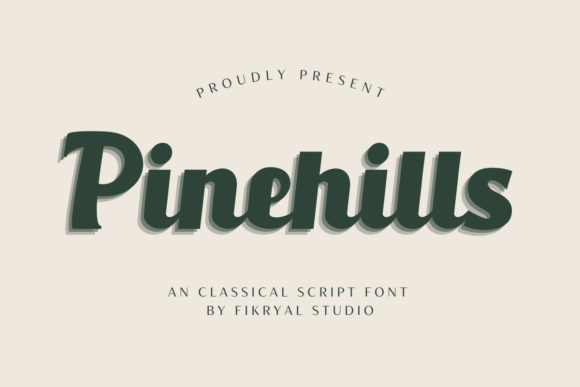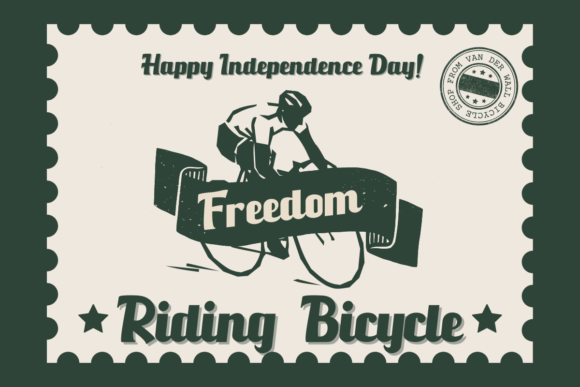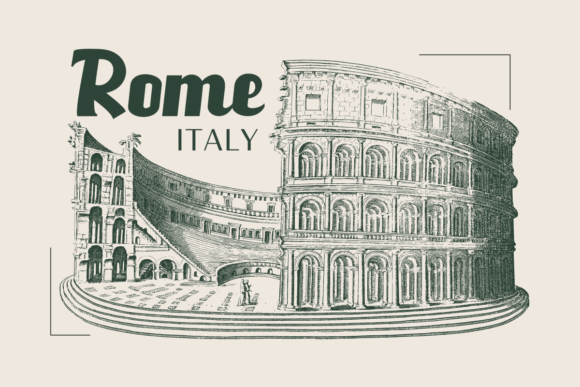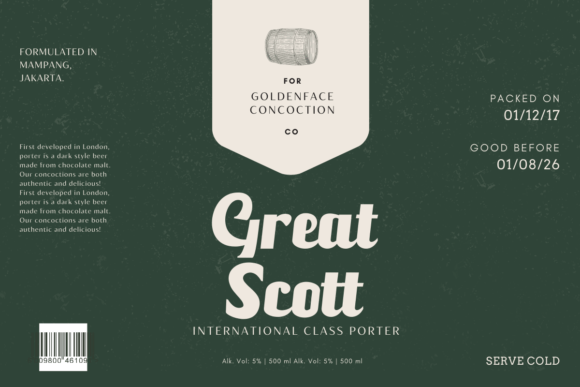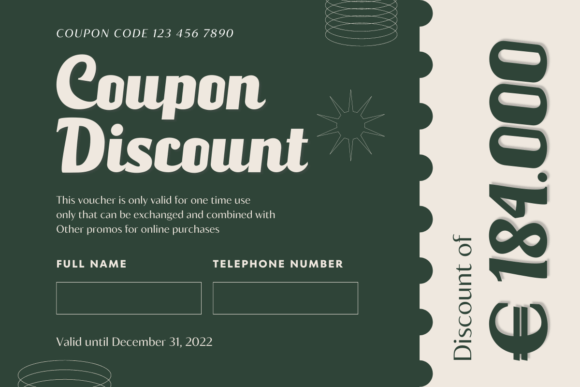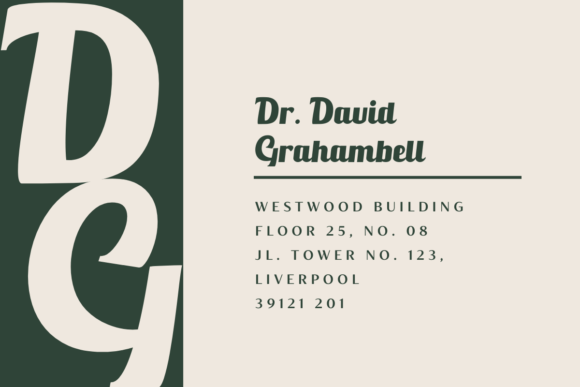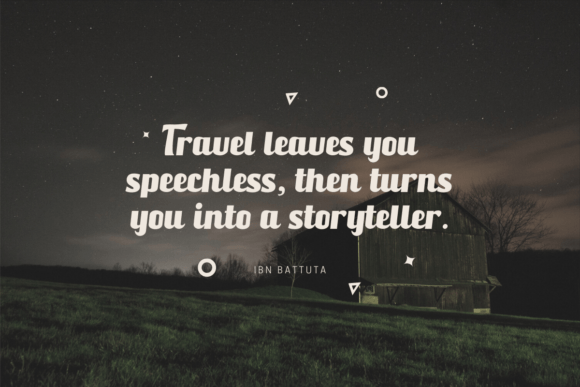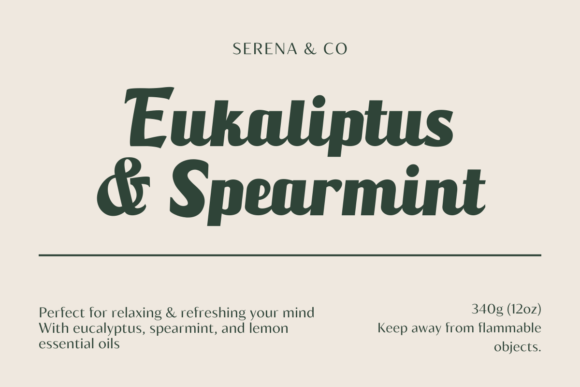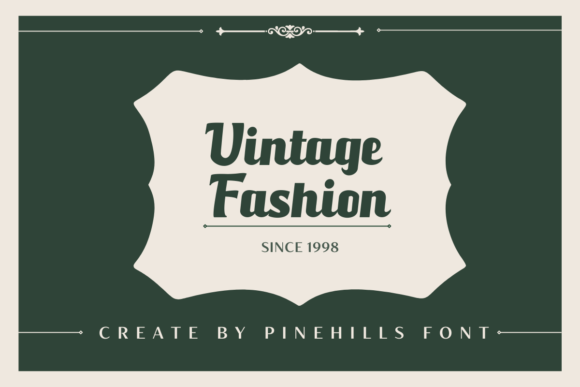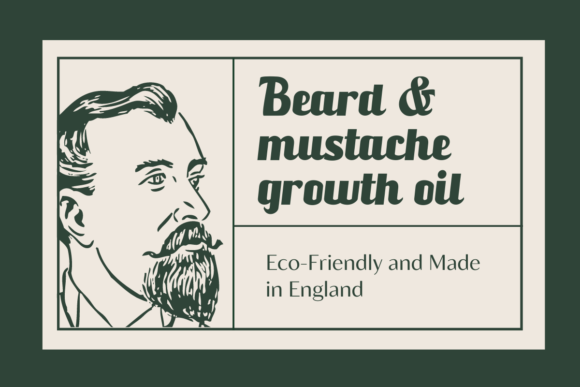
Pinehills
Pinehills: A Classical Slab Serif Font
Pinehills is a classical slab serif font that brings simplicity, elegance, and boldness to your designs. This versatile typeface works perfectly for many uses, from logos and branding to social media posts and vintage designs.
Key Features of Pinehills
• Classical Design: Offers a timeless and refined look.
• Simple Style: Features clean and clear letterforms.
• Bold Character: Makes a strong visual impact.
• Elegant Touch: Brings sophistication to designs.
Best Uses for Pinehills
Thanks to its versatile nature, Pinehills works especially well for:
When using Pinehills in your designs, keep these tips in mind:
• Try it for headlines or short text to show off its classical style.
• Mix different sizes to create interesting visual hierarchy.
• Pair with simpler fonts for body text to create balance.
• Use it for both modern and vintage-inspired designs.
To sum up, Pinehills is an excellent choice for designers seeking a classical slab serif font that combines simplicity with elegance. Its versatility makes it perfect for various design projects. Whether you’re creating logos, designing product packaging, or developing web content, Pinehills offers the perfect mix of boldness and refinement.
Furthermore, Pinehills’s unique design allows it to shine in both traditional and contemporary contexts. For instance, from vintage-inspired designs to modern social media posts, this font can lift your projects with its distinctive style. Also, its bold yet elegant appearance works particularly well in designs that aim to make a lasting impression while maintaining sophistication.
In conclusion, Pinehills truly captures the essence of classical design in slab serif typography. Its versatility across different applications shows how it can fit various creative needs. Therefore, for those wanting to add a touch of timeless charm to their work, Pinehills can enhance themed creations with its unique style. Ultimately, it’s an ideal choice for designers aiming to make a bold, elegant impact across a wide range of creative projects.